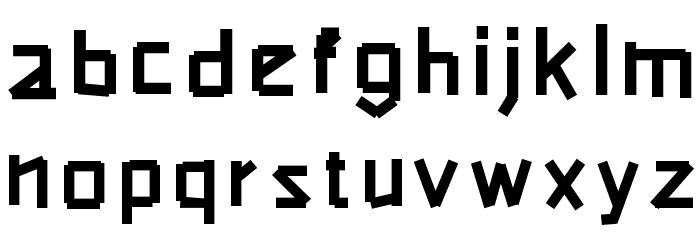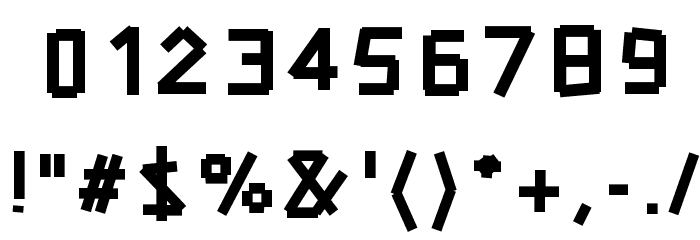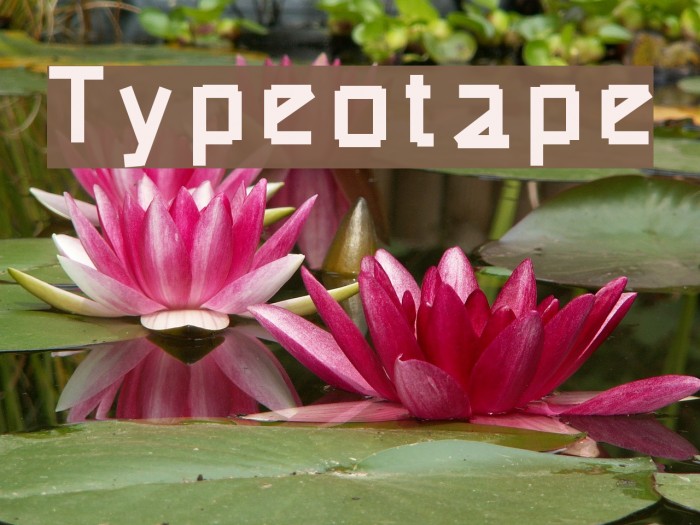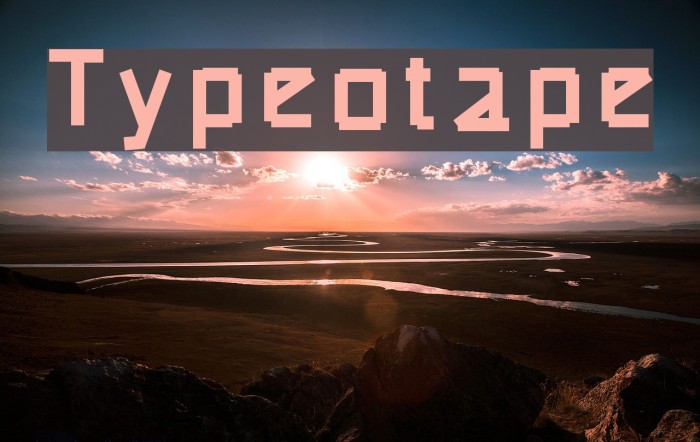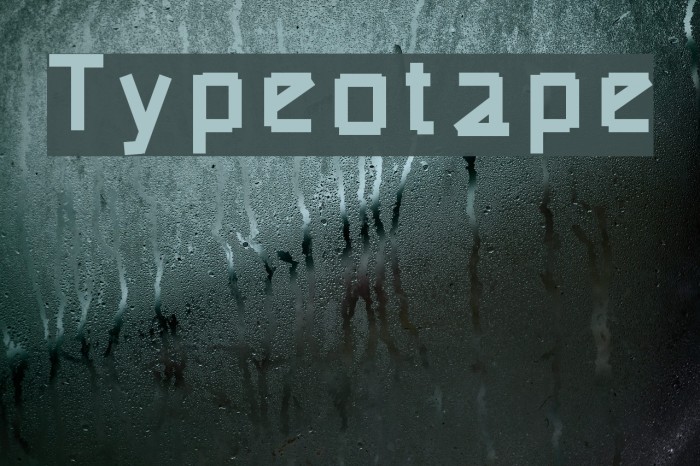
Typeotape Font
This font features a bold and geometric design with a distinct angular style. The characters are constructed with sharp edges and a blocky appearance, giving it a modern and edgy look. The uppercase and lowercase letters maintain a consistent width, creating a uniform and cohesive appearance. The numerals and special characters follow the same angular theme, ensuring visual harmony across all elements. This font's unique structure makes it stand out, ideal for projects that require a strong visual impact.
A bold, geometric font with sharp, angular characters.
- Proposed Projects: Ideal for branding, posters, album covers, and any design requiring a modern, edgy aesthetic.